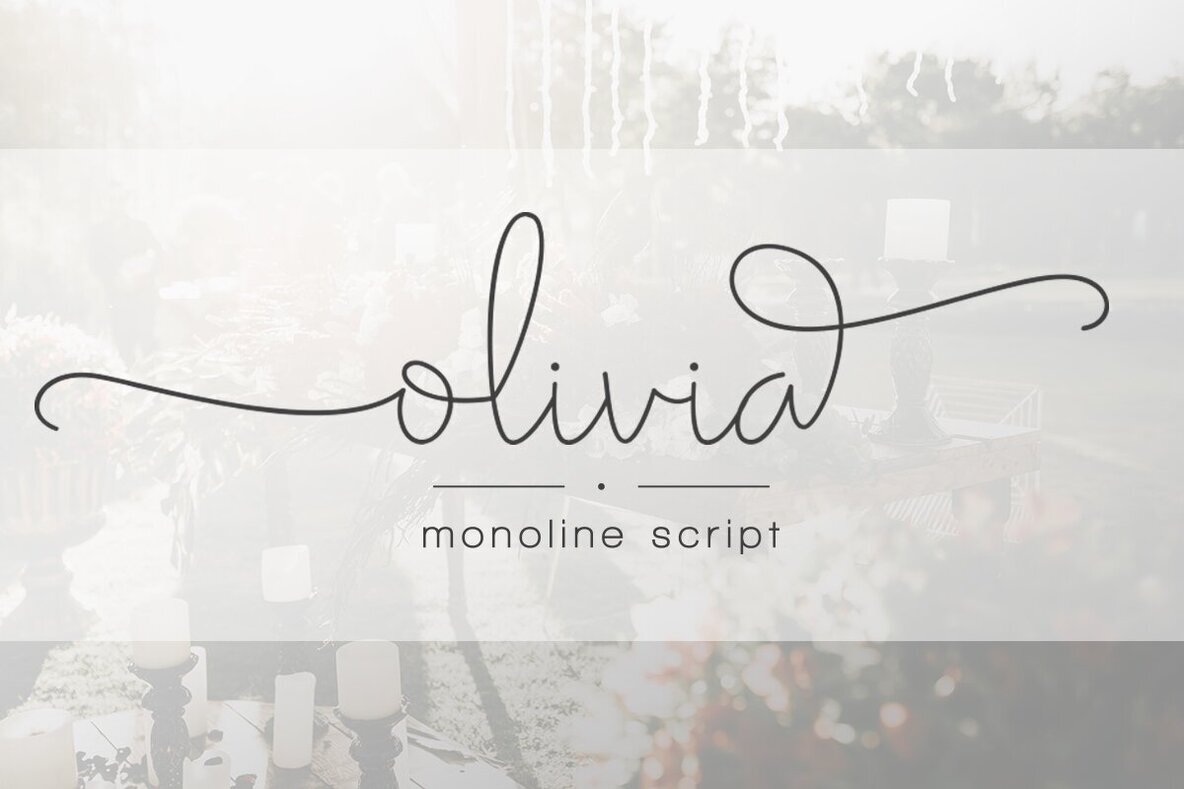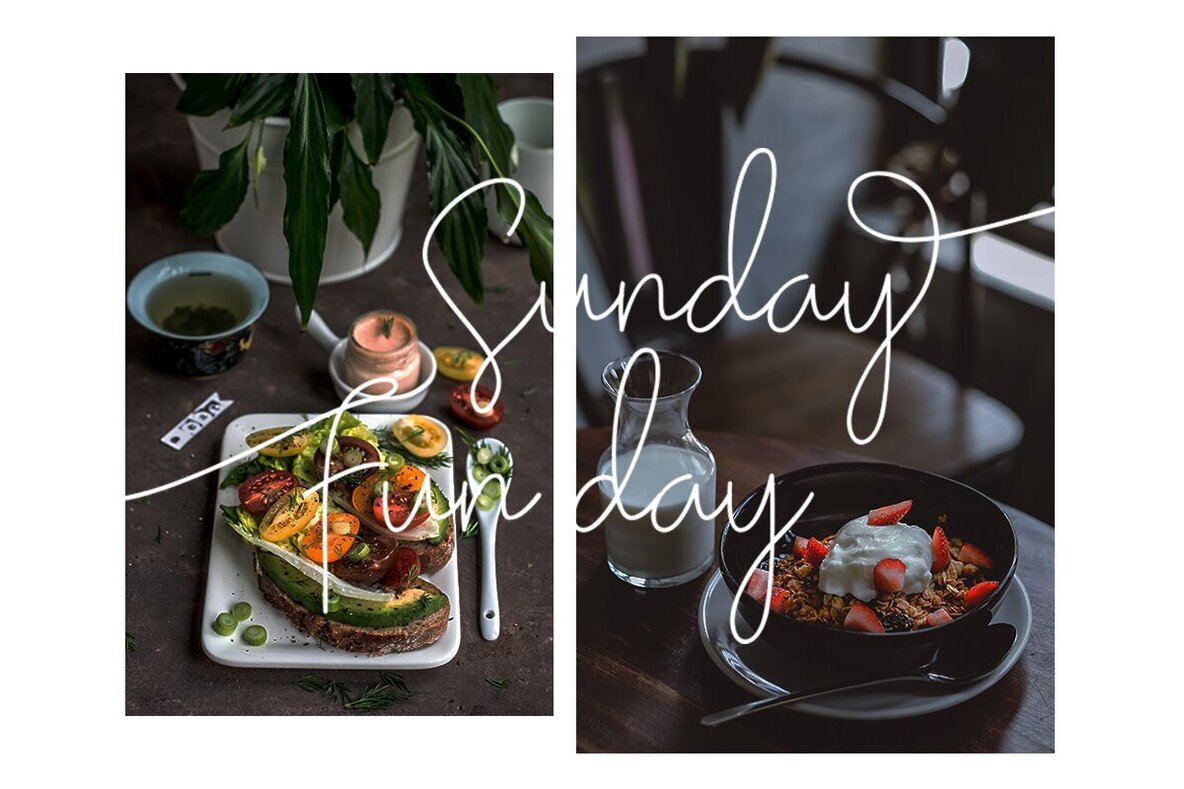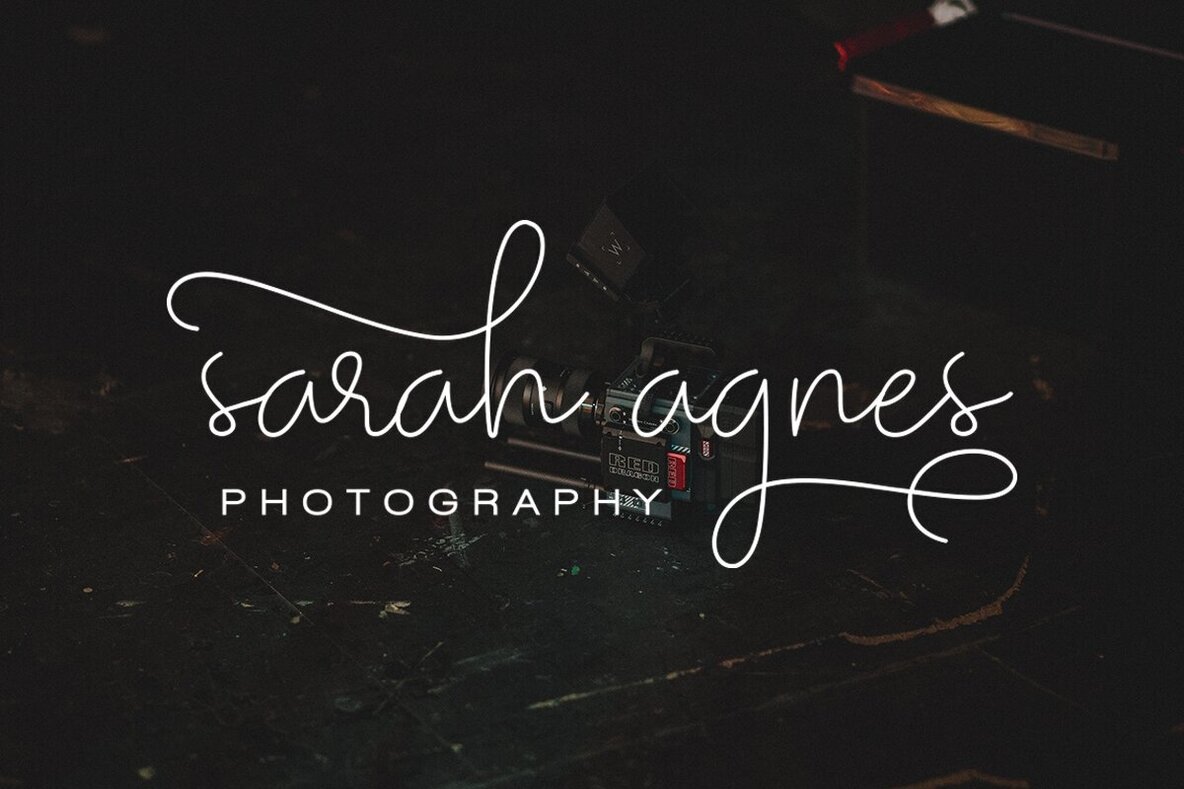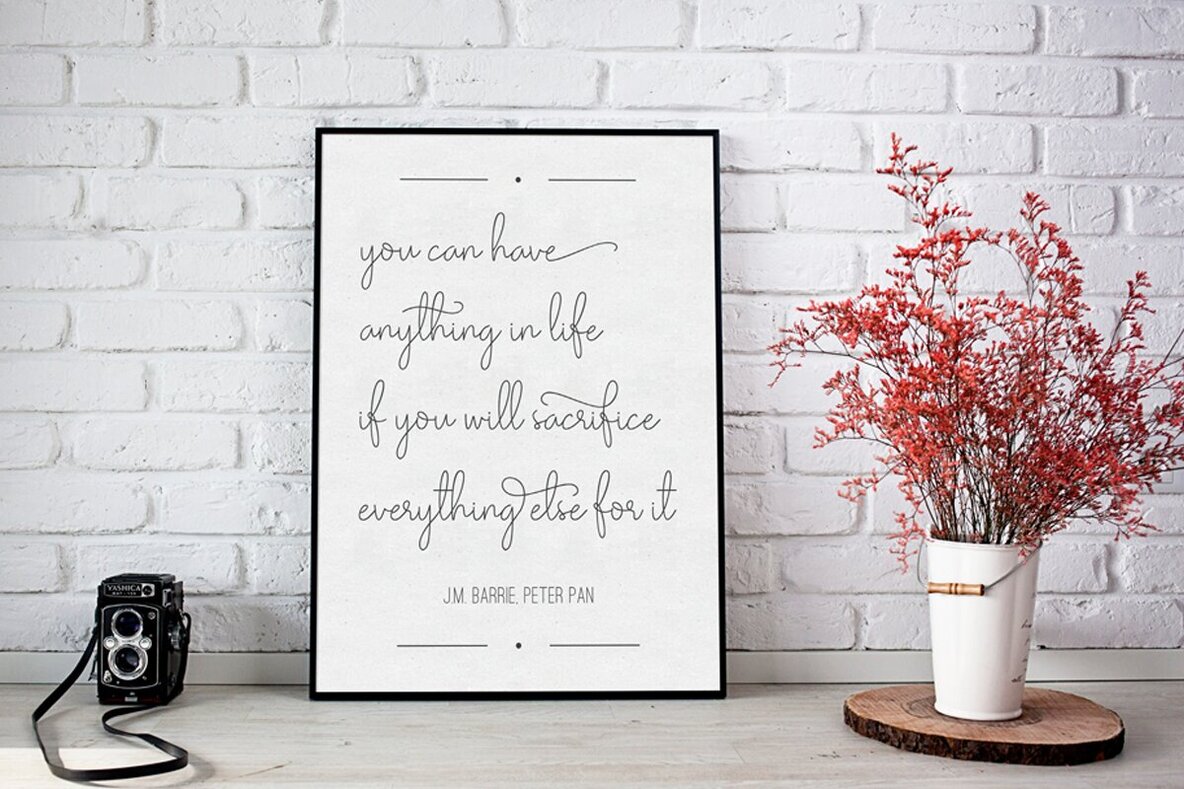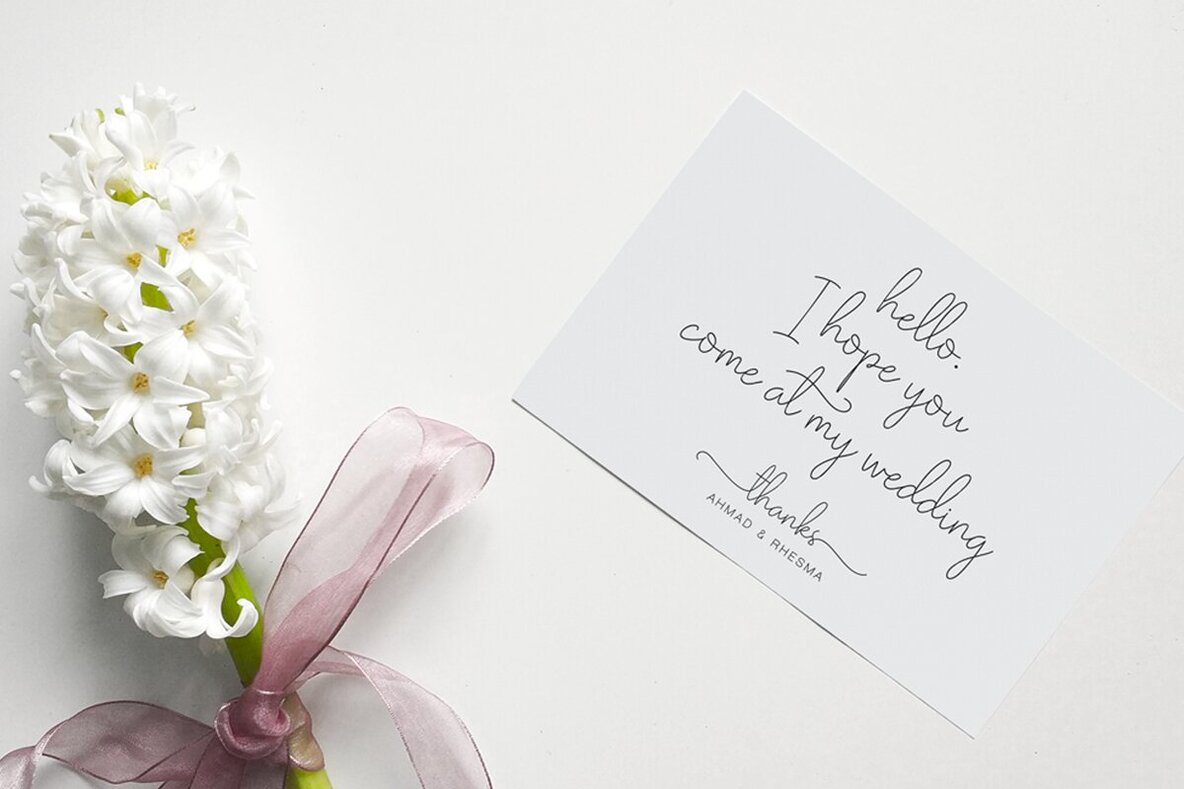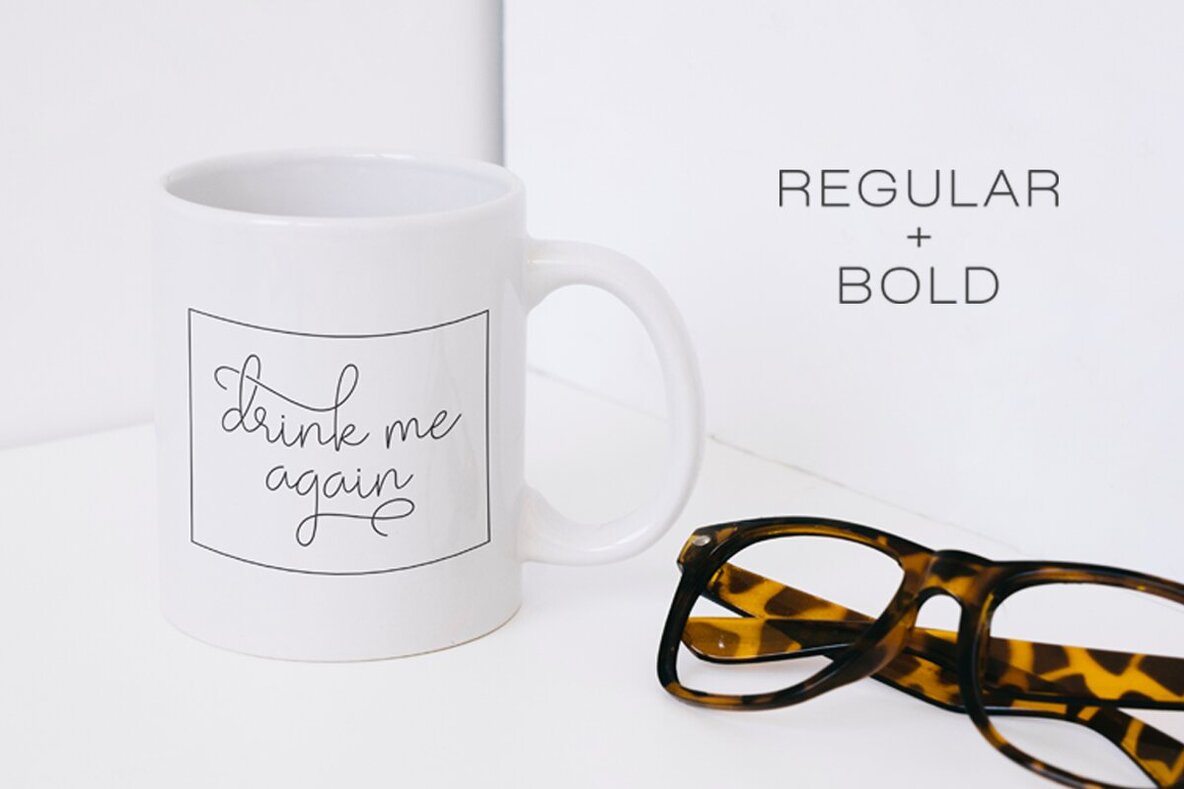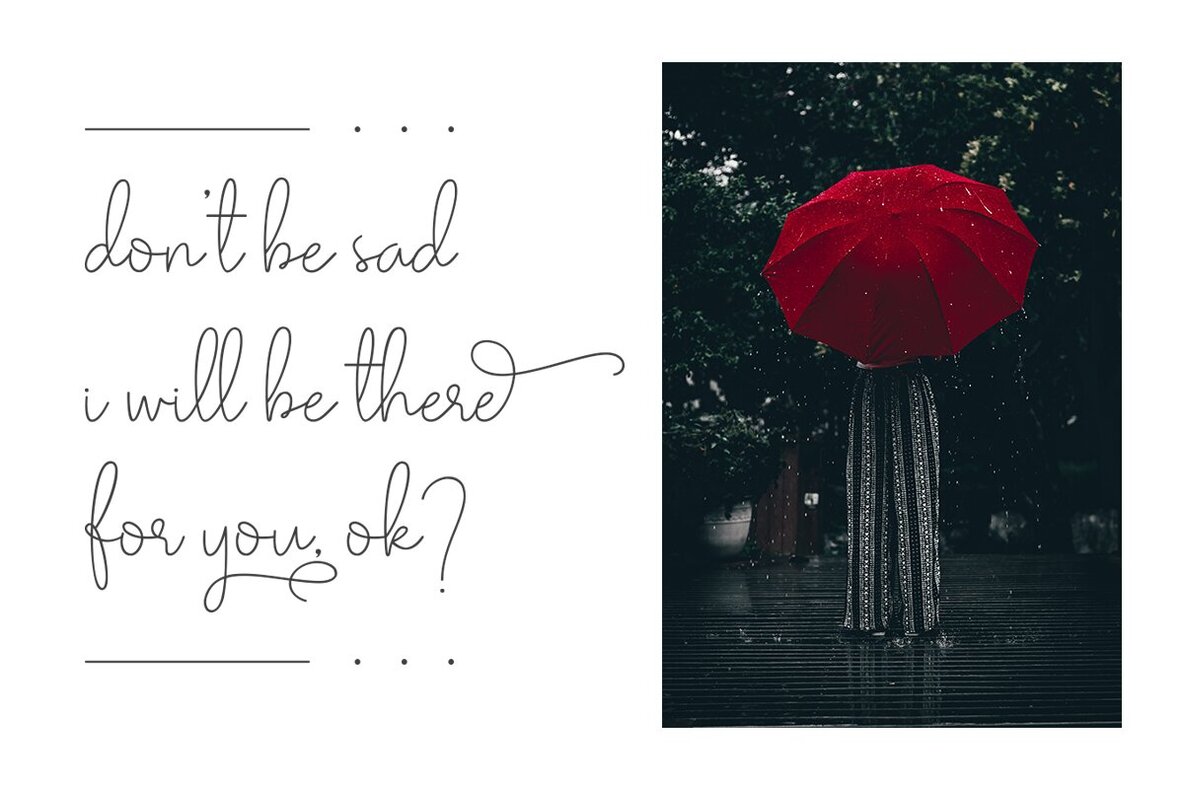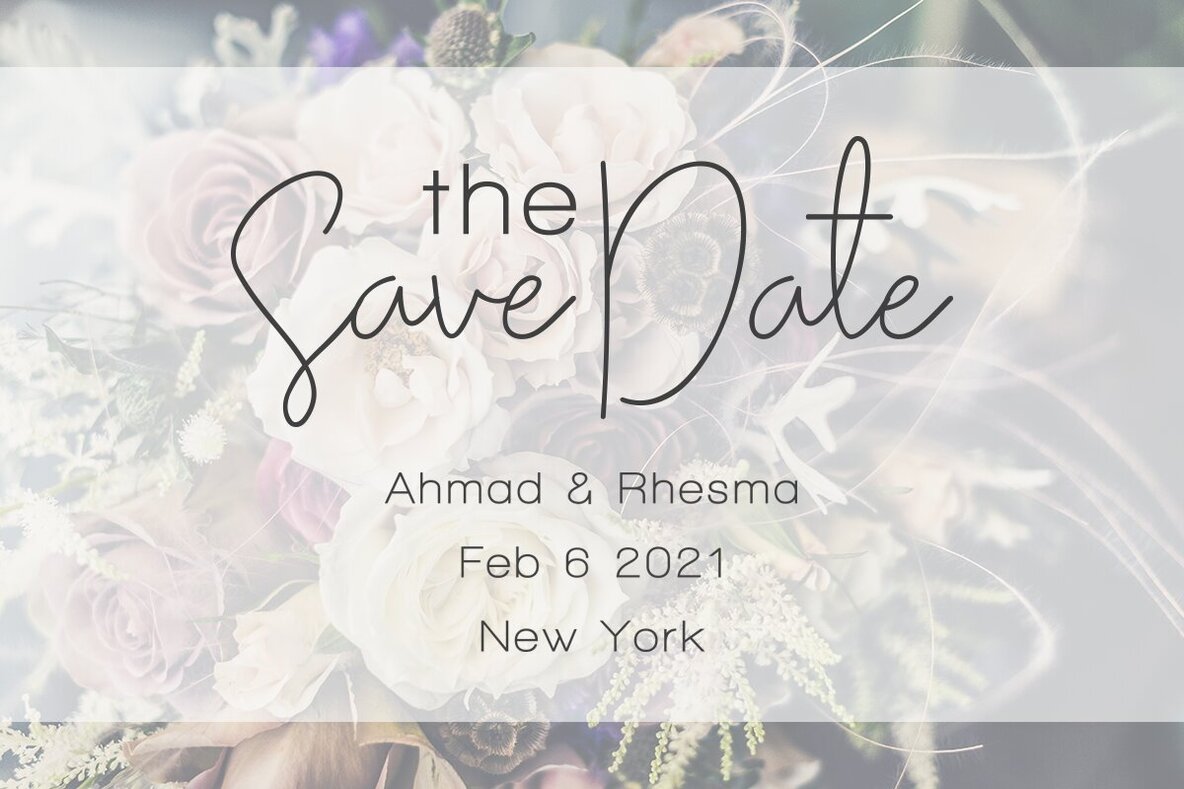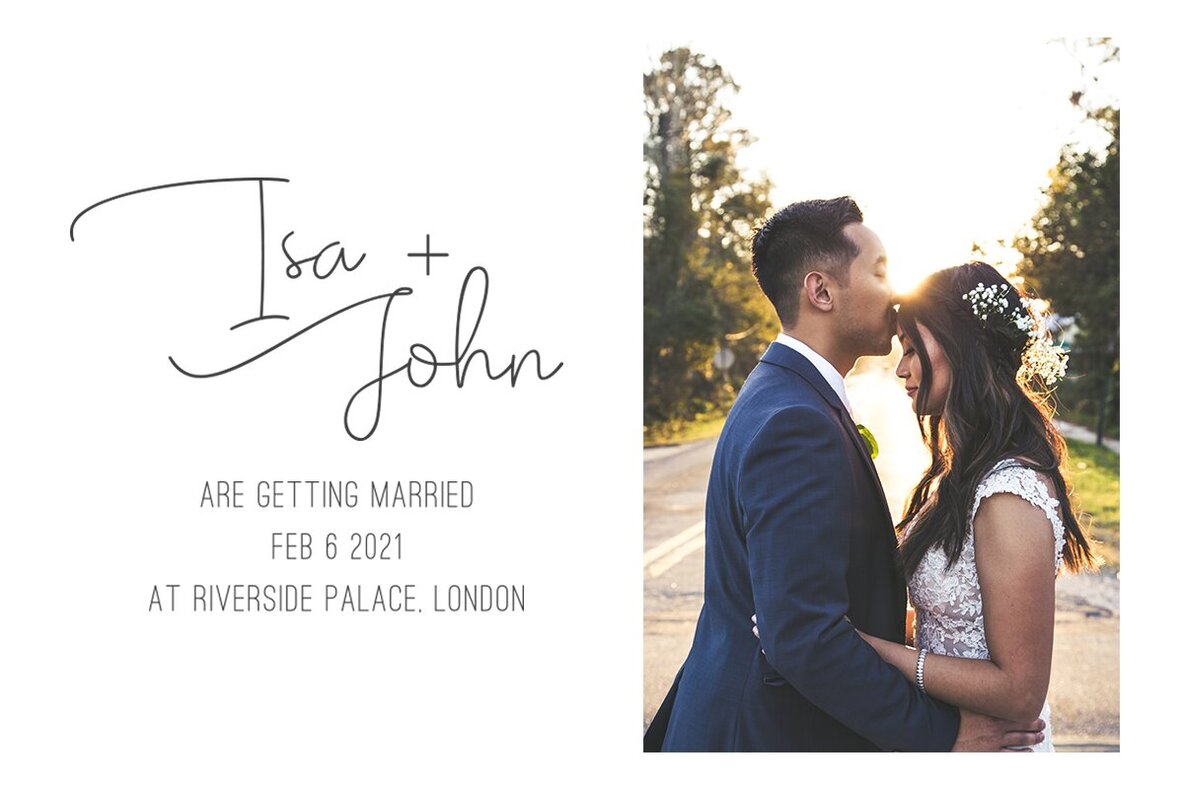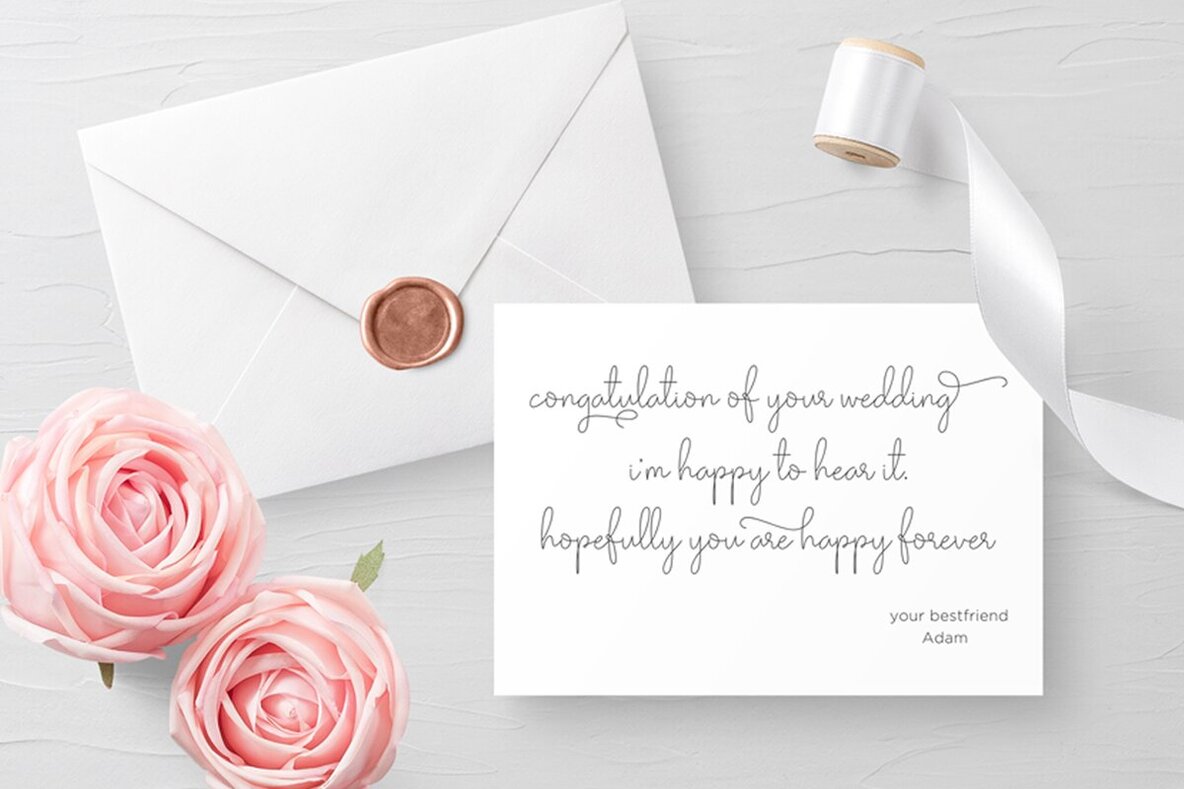
Olivia Font
Discover the elegance of Olivia, a uniquely designed monoline script font that merges modern calligraphy with a sophisticated handwritten flow. This versatile typeface is ideal for adding a touch of grace to your branding, logos, wedding invitations, diaries, cups, mugs, and greeting cards. With Olivia, you can effortlessly transform your text into a beautiful piece of art. Olivia's smooth texture ensures excellent print quality, suitable for various techniques such as embroidery and gold foil. Experience the seamless blend of style and functionality with Olivia, the perfect addition to your design toolkit.Introducing Olivia: A Modern Monoline Script Font
Features of Olivia